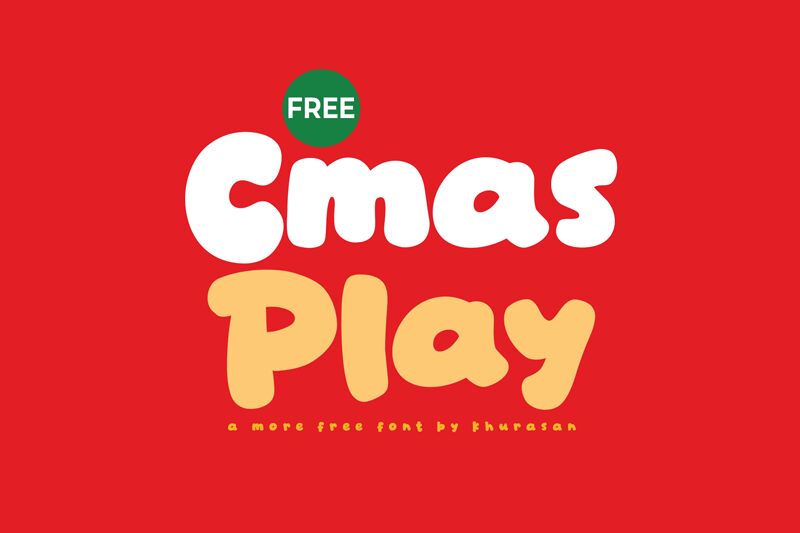
Cmas Play font family is cartoon, inviting-looking typography that consists of two font styles. Designed with friendliness, casual charm, and warmth in mind, this rounded font family will suit any type of youthful design project. A clear inspiration from modern cartoon letters is visible and will help your readers jump into a playful and relaxed state of mind when interacting with the text.
Use the Cmas Play font in poster designs, children’s books, packages for snacks, branding projects for schools, online campaigns and animations related to games, toys, online stores, or even print on children’s fashion.